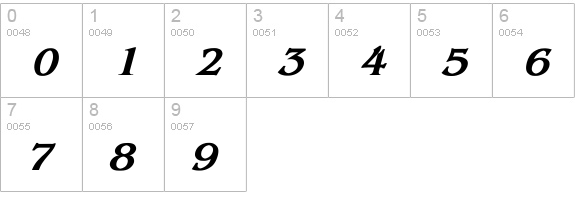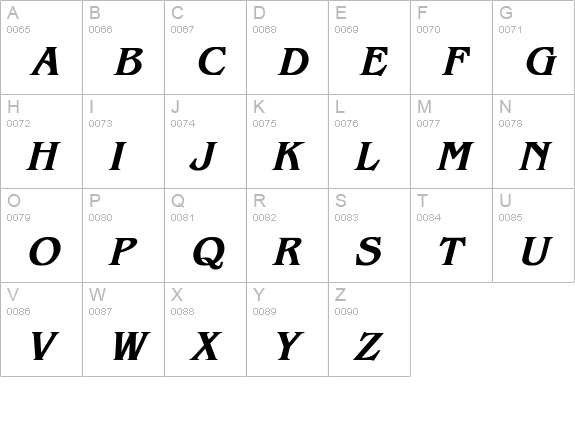
Benguiat Bold Italic Font Details
Benguiat Bold Italic is a strong, high-contrast, italic variant in the Benguiat typeface family \xE2\x80\x94 well suited to headlines, attention-grabbing titles, and strong calls-to-action.
Benguiat Bold Italic font is a striking and elegant typeface that exudes a sense of sophistication and style. With its bold weight and slanted italic design, this font is perfect for creating eye-catching headlines, titles, and branding materials. The unique curves and sharp serifs of Benguiat Bold Italic make it stand out from the crowd and add a touch of flair to any project. The best part about Benguiat Bold Italic font is that it is completely free to download at FontsMarket.com. Whether you're a designer looking to add a touch of drama to your designs or a business owner wanting to make a statement with your branding, Benguiat Bold Italic font is the perfect choice. Download it today and elevate your projects with this stunning and versatile typeface.